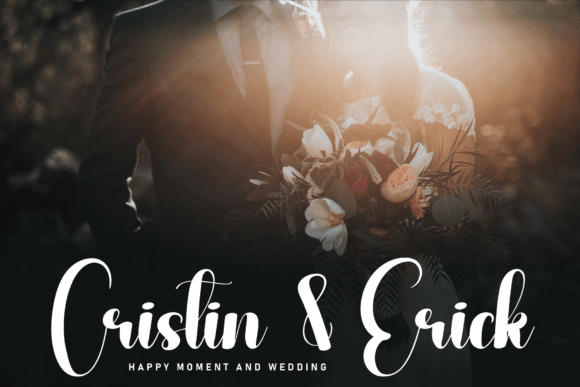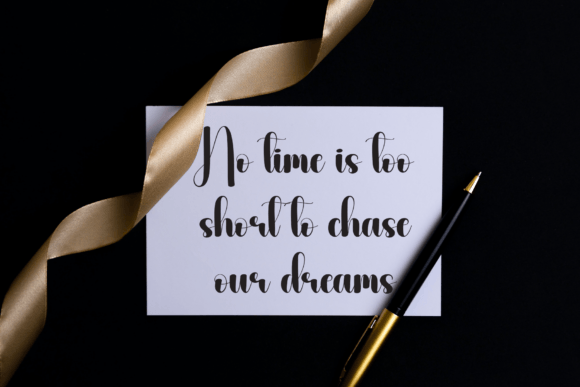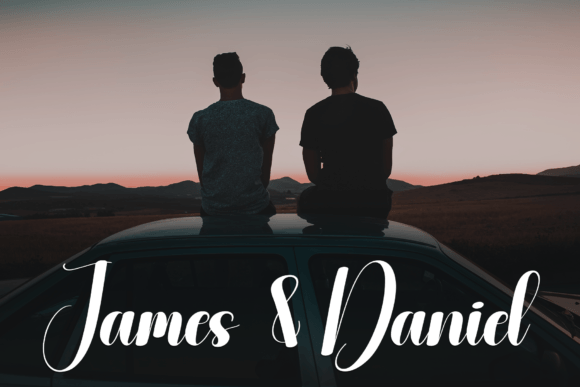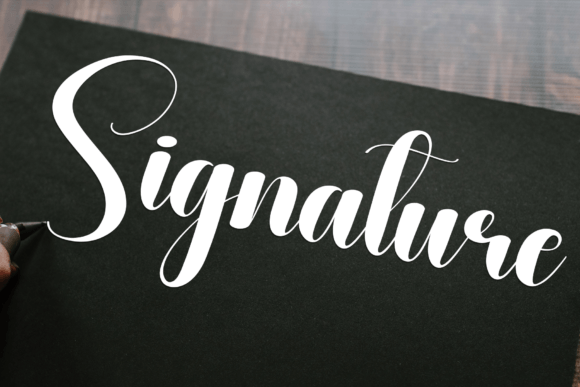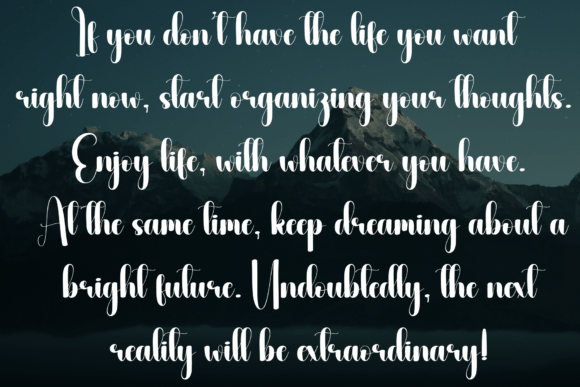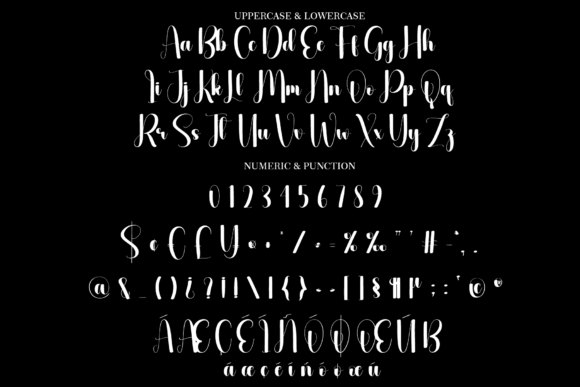
Introduction to Pitchblack Font
Have you ever found yourself rummaging through your design files, searching for the perfect font to give your creative project that extra oomph? The hunt can be tedious, but what if I told you that I’ve discovered a font that’s sure to put a smile on your face and elevate your design to the next level?
Meet the Pitchblack Font, a charming and playful handwritten display font that’s perfect for adding a touch of whimsy to your designs. Whether you’re working on a wedding invitation, a birthday card, or any other design that needs a dash of fun, this font is sure to be a game-changer. With its PUA encoding, you’ll have access to a wide range of glyphs and ligatures, making it a valuable resource for designers looking to add a personal touch to their work.
Key Features of Pitchblack Font
- High-quality design resource ideal for creative projects requiring a sleek, modern aesthetic.
- Unique, modern design makes it perfect for a wide range of creative projects, from branding and marketing materials to digital products and websites.
Honest Review: Pitchblack Font
As a designer, I’ve had the opportunity to work with a variety of fonts, but recently I stumbled upon the Pitchblack Font. I was excited to dive in and see what it had to offer.
Here’s what works well:
- ✨ High-quality design: The Pitchblack Font is sleek and modern, making it perfect for creative projects that require a touch of sophistication.
- ⚠️ Limited character set: The Pitchblack Font only includes a limited set of characters, which may not be suitable for projects that require a wide range of characters.
- ⚠️ Not ideal for small text: Due to its modern design, the Pitchblack Font may not be the best choice for small text or body copy.
Overall, I’m impressed with the Pitchblack Font’s design and versatility. While it may have some limitations, it’s a great resource for designers working on creative projects that require a modern and sophisticated look.
Designing with Pitchblack Font
Tips for Getting the Most Out of Pitchblack Font
Use Pitchblack Font with a transparent background to create a clean and modern design. Experiment with different font sizes and styles to add depth to your design.
Pitchblack Font is ideal for creating logos, business cards, and social media graphics. Its sleek design makes it perfect for any creative project that requires a modern touch.